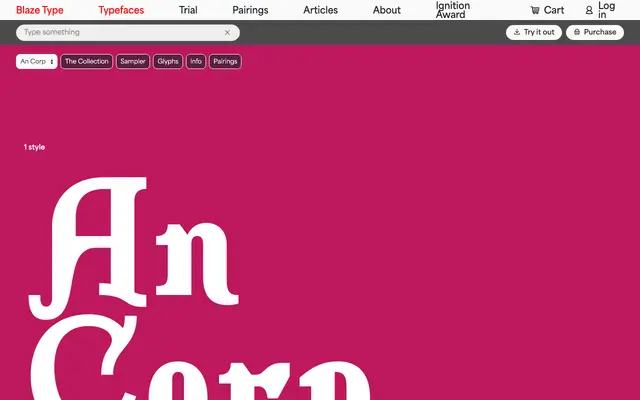
An Corp
Blaze Type · Matthieu Salvaggio, Léon Hugues, Pauline Fourest · 2025
An Corp specimen from Blaze Type
A revival of the in-game text font from 1997's Ultima Online, redrawn from low-resolution pixels into a full Latin typeface with Lombardic capitals and slab serif construction.
Each glyph was traced over the original pixel letterforms to preserve their proportions, inheriting low contrast, orthogonal terminations and slab serifs that make it readable at small sizes. The collision of Lombardic uppercase characters with more contemporary lowercases produces a deliberately anachronistic texture. Its name draws from the Resurrection spell in Ultima Online, and the project pays tribute to the late Micael Priest, who is believed to have created the original in-game font.
The page describes An Corp as a hybrid Gothic typeface with low contrast, orthogonal terminations and slab serifs inherited from its pixel-font source, placing it firmly in the slab category with a blackletter-influenced Gothic character.